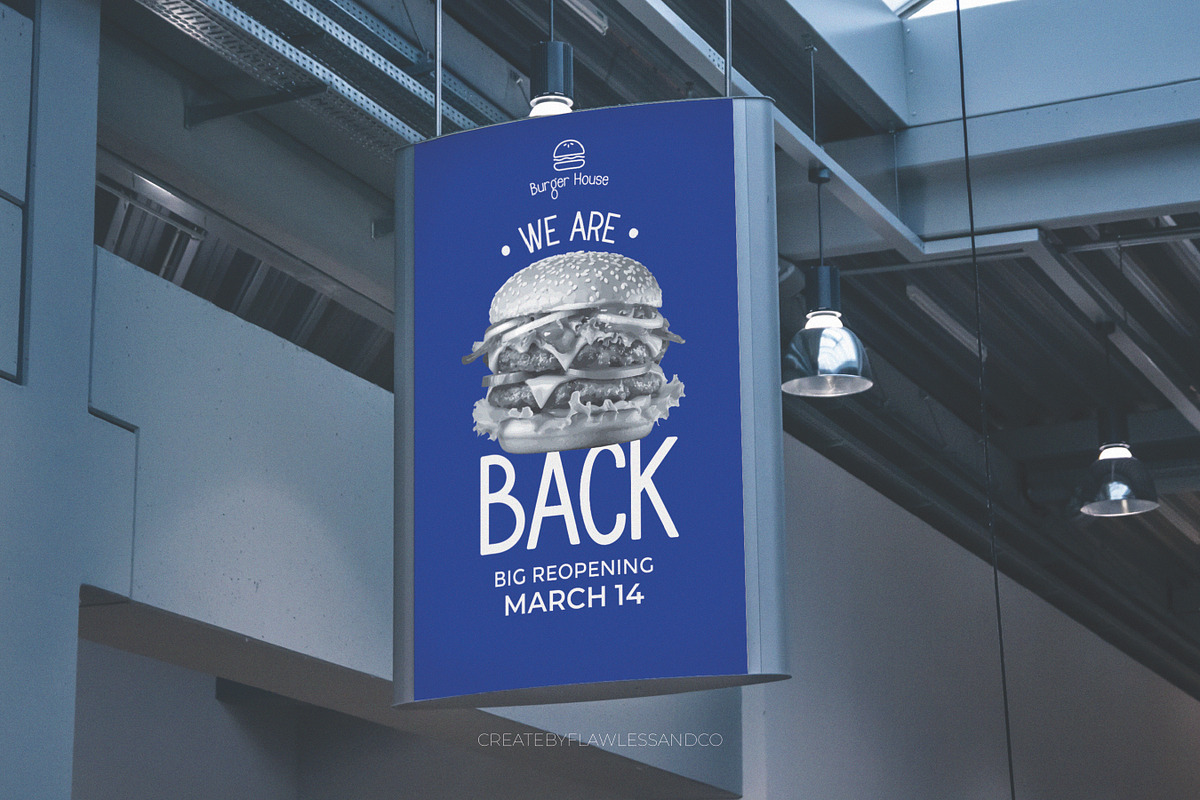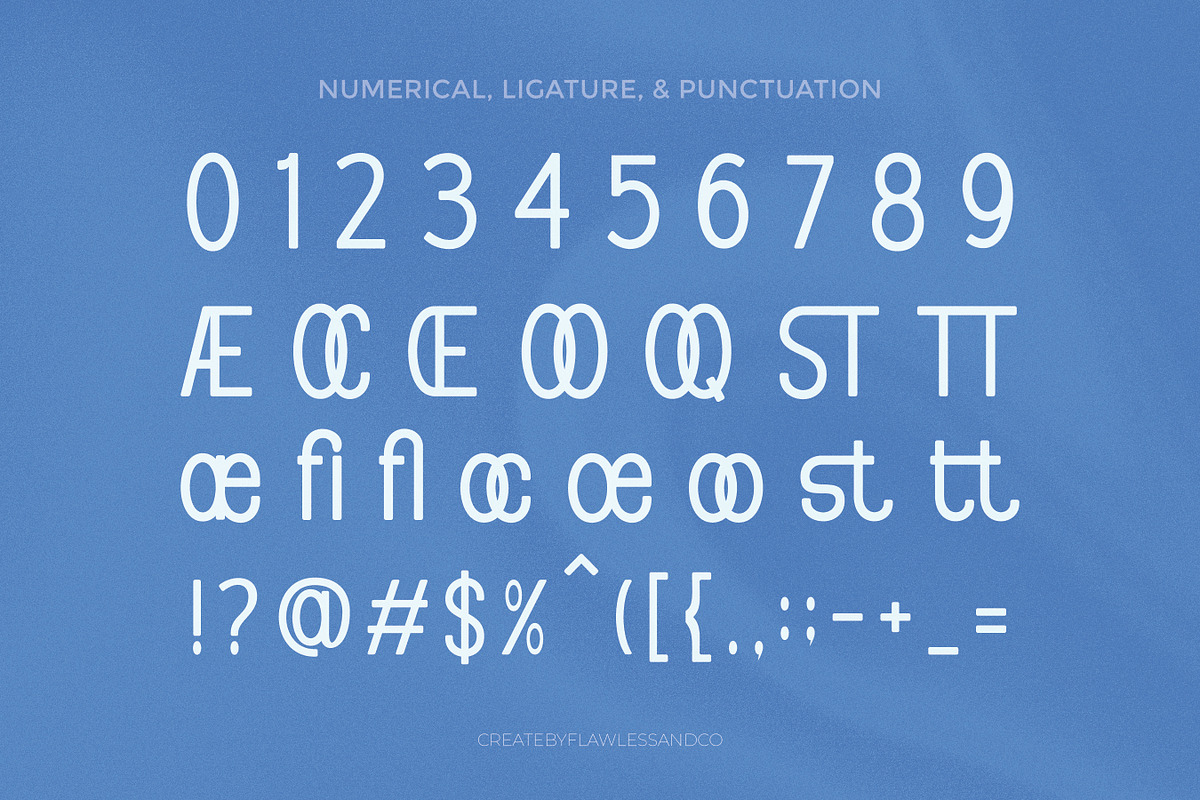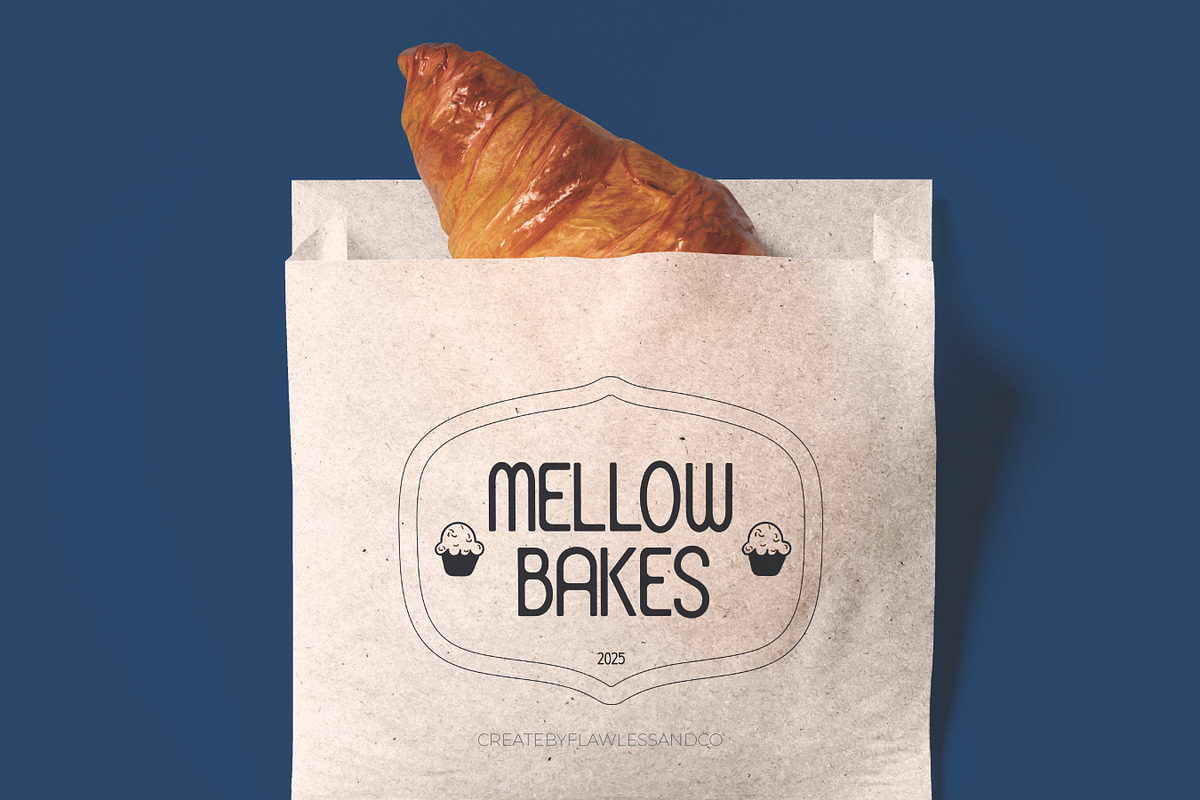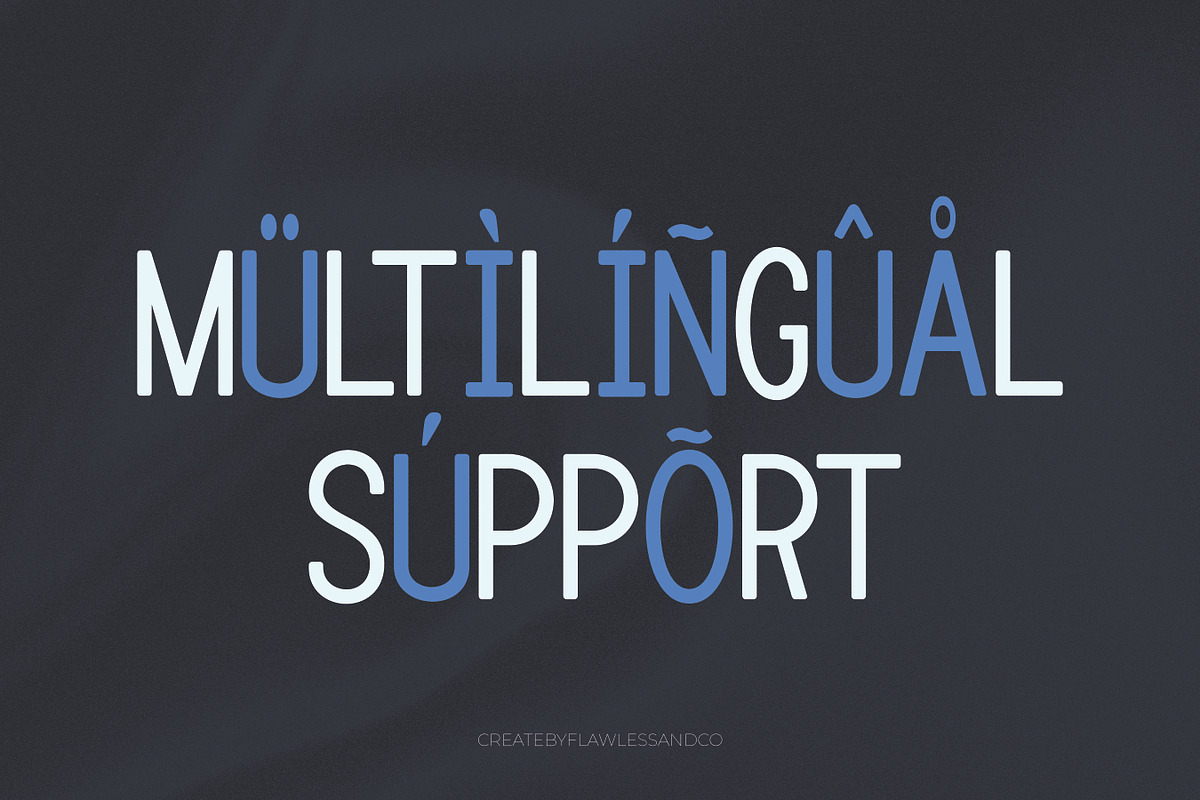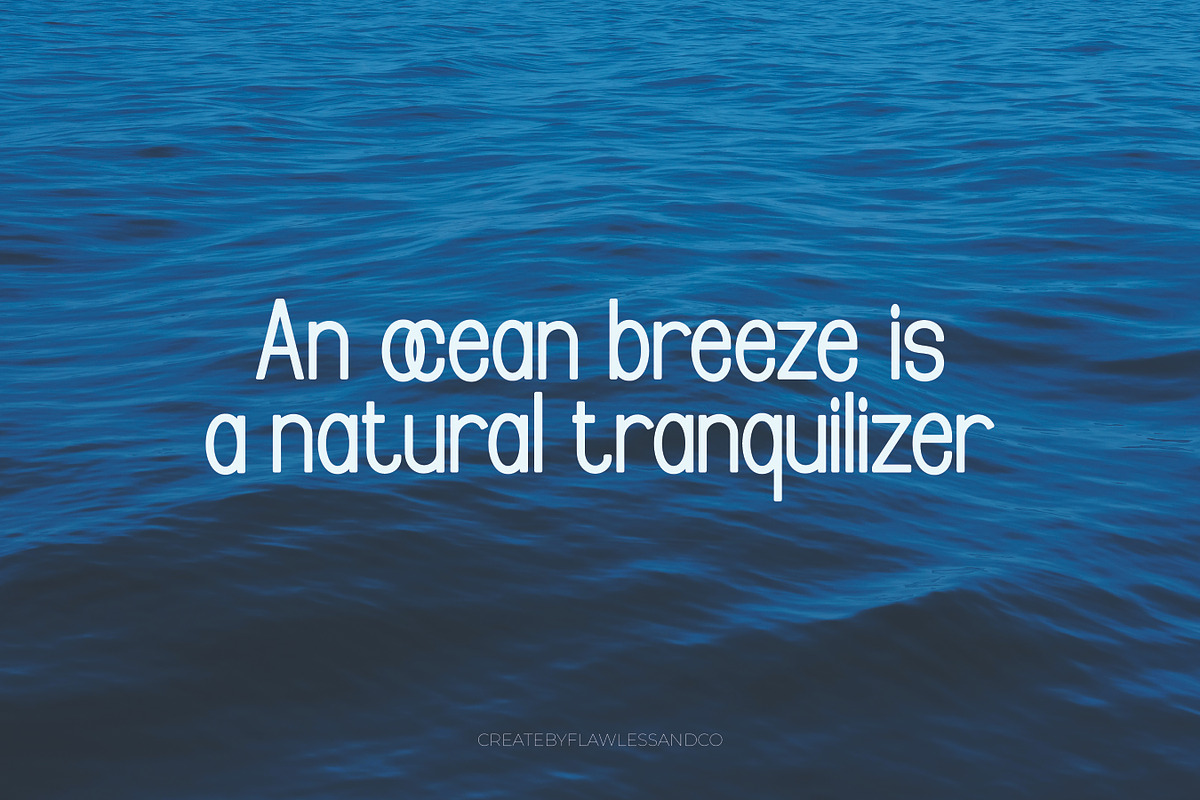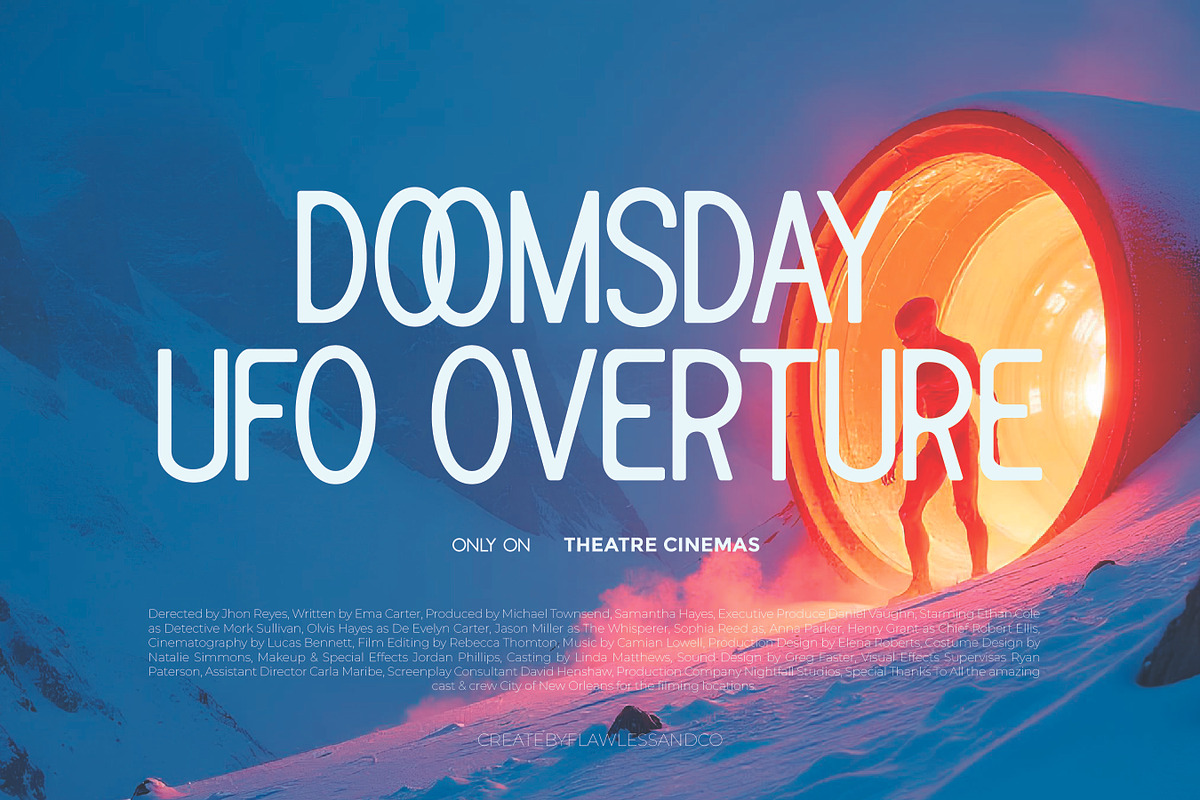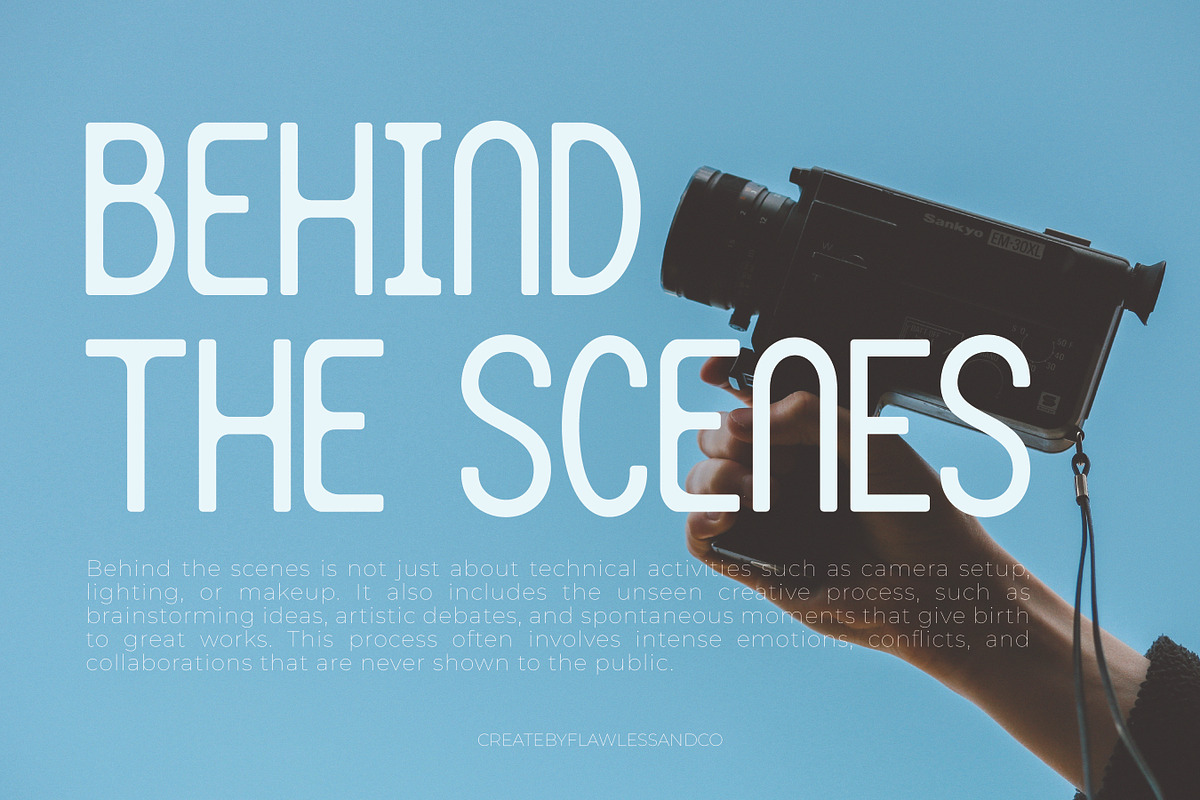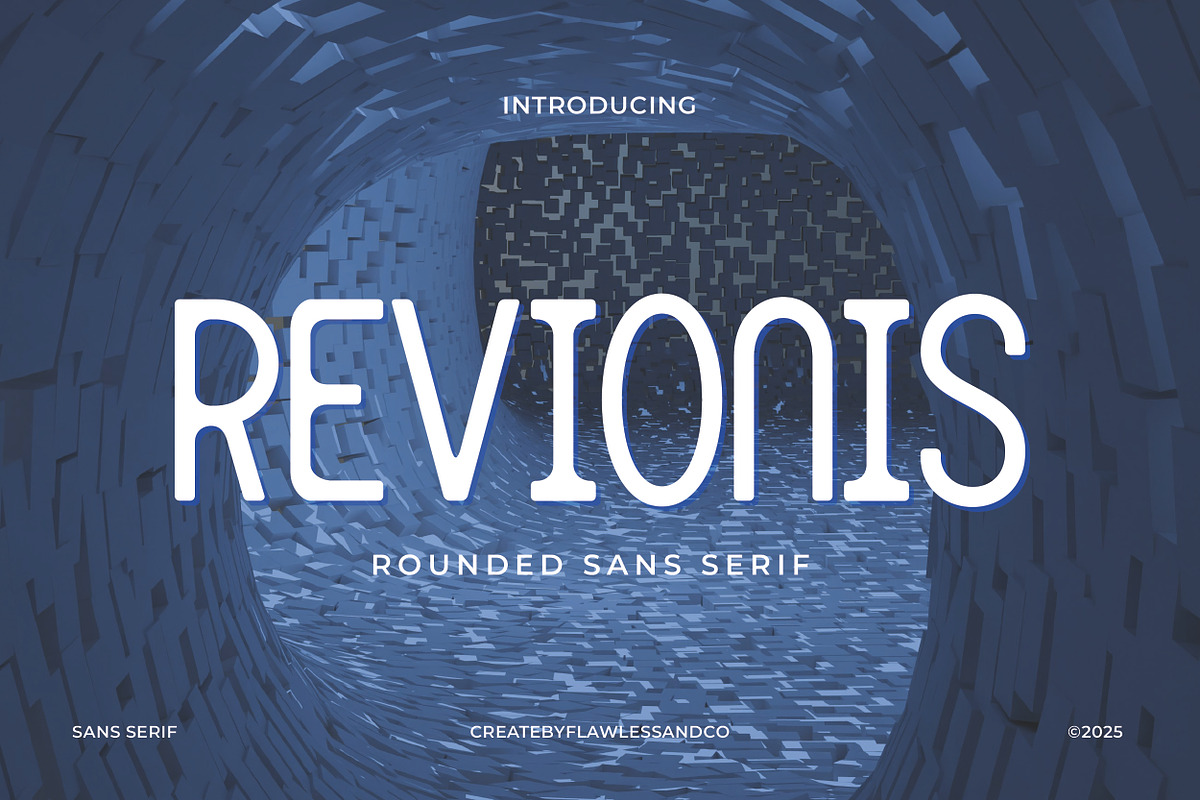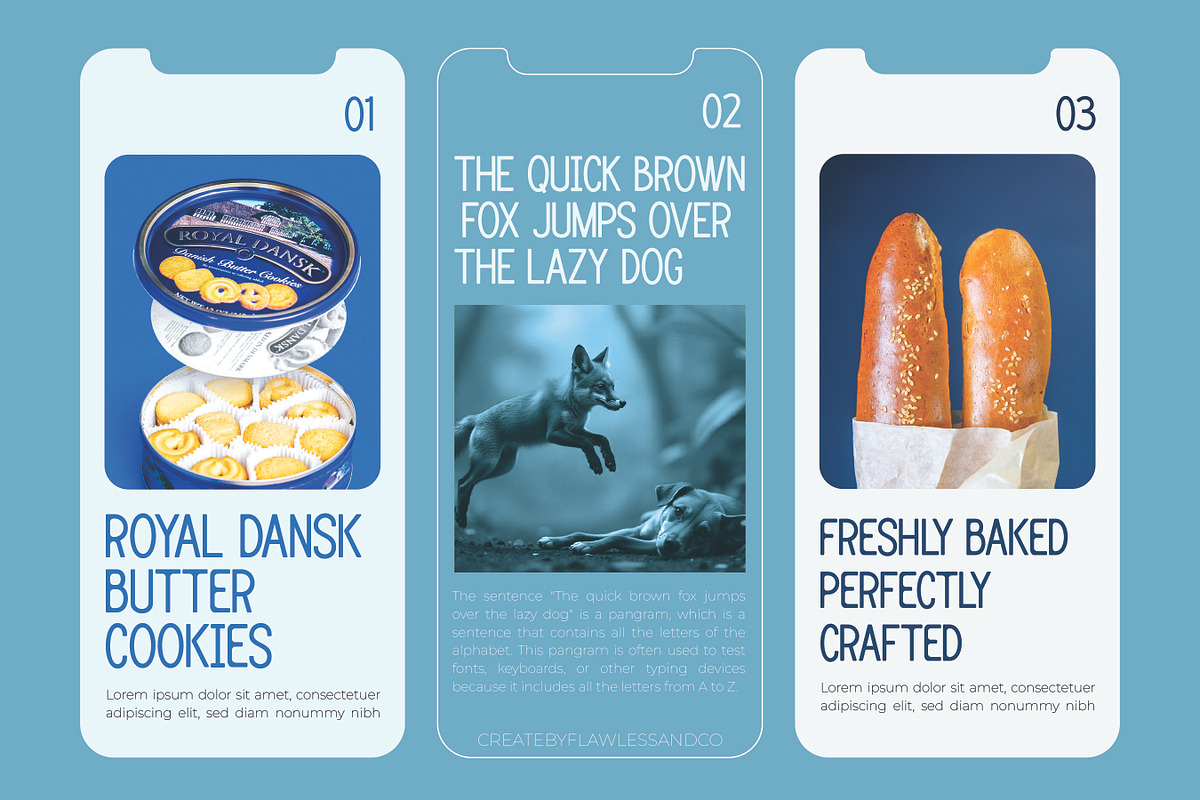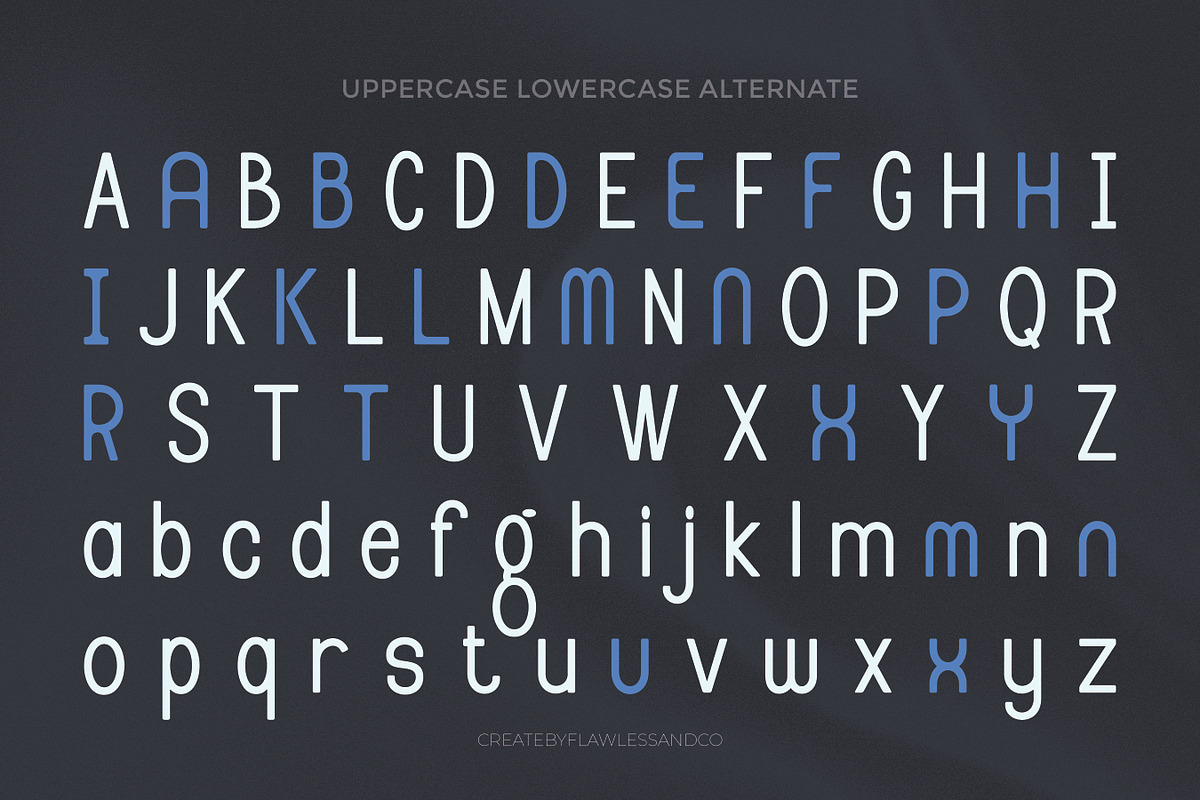
Revionis - Sans Serif
Revionis is a clean and modern sans serif font designed to bring simplicity and sophistication to your projects. With its sleek letterforms and balanced proportions, this font is perfect for branding, logos, website headers, editorial layouts, and social media graphics. Its minimalistic style makes it versatile and easy to pair with other typefaces, making it a great choice for both professional and creative designs.
Multilingual Uppercase alphabet A-Z Lowercase alphabet a-z Numbers 0-9 Some punctuation Alternates & Ligatures